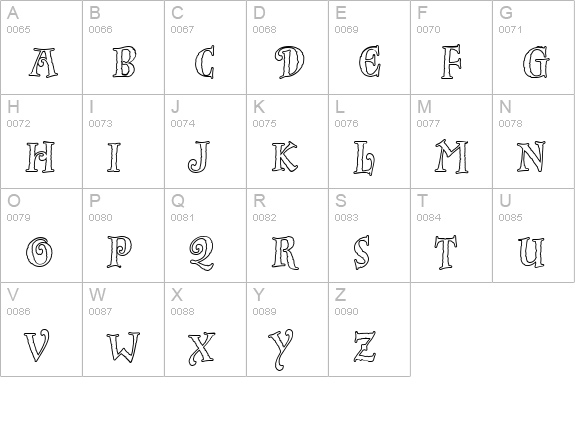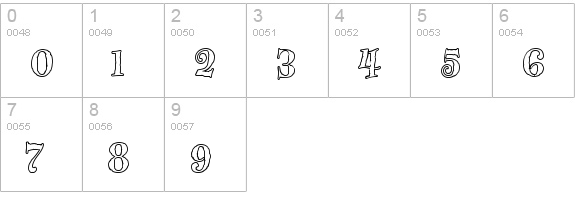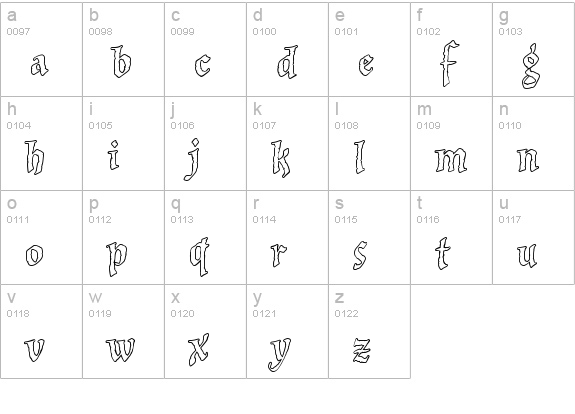
InkPotOutline Font Details
InkPotOutline font is a stunning display typeface that combines elegance with a touch of whimsy. Its unique design features a hand-drawn outline that gives it a charming and artistic feel. This font is perfect for adding a creative and playful touch to any project, whether it's a logo, poster, or website design. What sets InkPotOutline font apart is not only its eye-catching appearance but also the fact that it is available for free. That's right, you can freely download this incredible font at FontsMarket.com. This means that you can add a touch of creativity to your projects without breaking the bank. With its wide range of characters and versatile style, InkPotOutline font is a must-have for designers, artists, and anyone looking to make a statement with their typography. Its handwritten feel adds a personal touch to any text, making it stand out from the crowd. Whether you're looking to create a vintage-inspired design, a whimsical illustration, or simply want to add an artistic flair to your project, InkPotOutline font is the perfect choice. Download it for free today at FontsMarket.com and let your creativity flow.